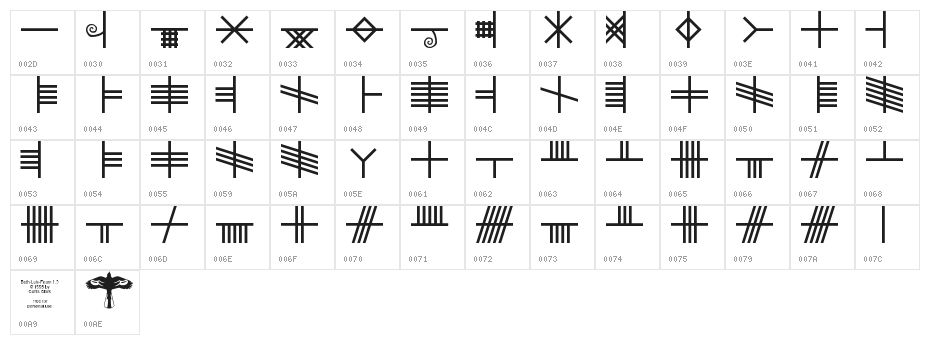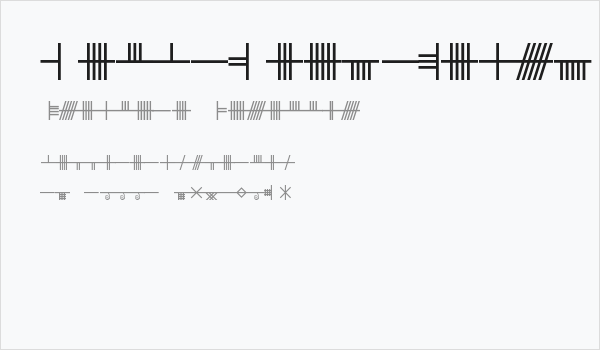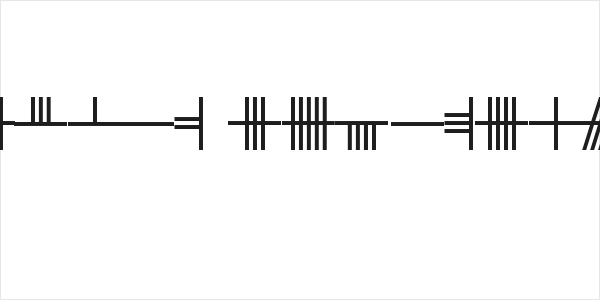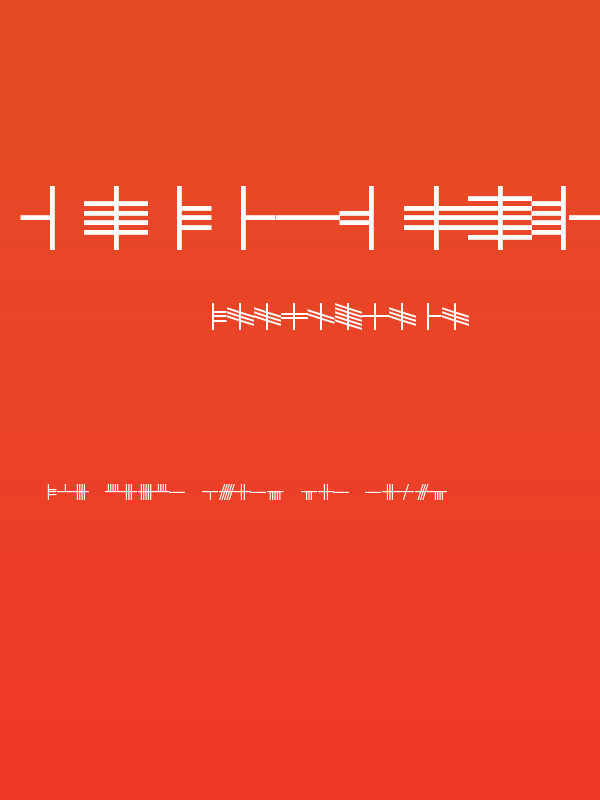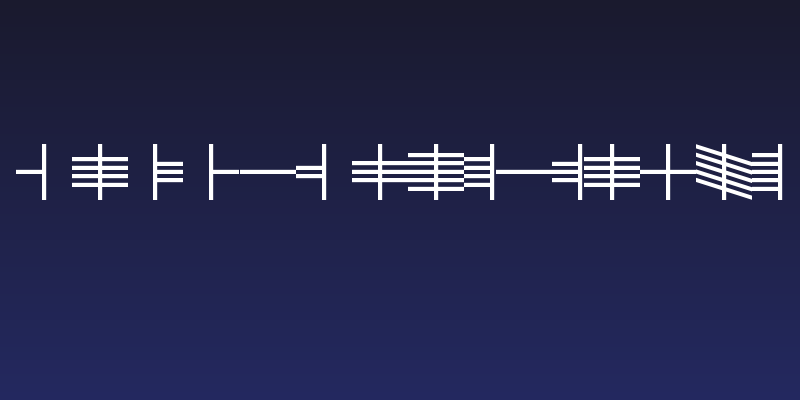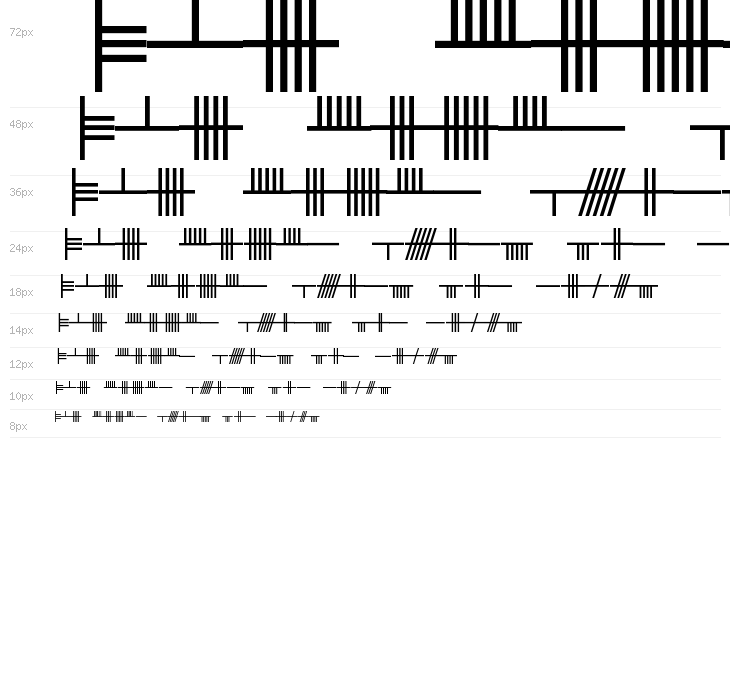
Beth-Luis-Fearn Font
Beth-Luis-Fearn Description
This font is a unique and ancient script known as Ogham, characterized by its series of vertical and diagonal lines intersecting a central horizontal line. Each character is composed of a distinct combination of strokes, creating a visually striking and symbolic appearance. The script was traditionally used for inscriptions on stone and wood, giving it a historical and mystical aura. Its linear and geometric design makes it stand out, with each letter having a distinct and memorable form. The font's simplicity in structure contrasts with its complex cultural significance, making it a fascinating choice for projects that aim to evoke a sense of history and tradition.
| Use Case | Logos, Decorative elements, Educational materials |
| Proposed Projects | Ideal for historical or cultural projects, educational materials on ancient scripts, or decorative purposes in design work. |